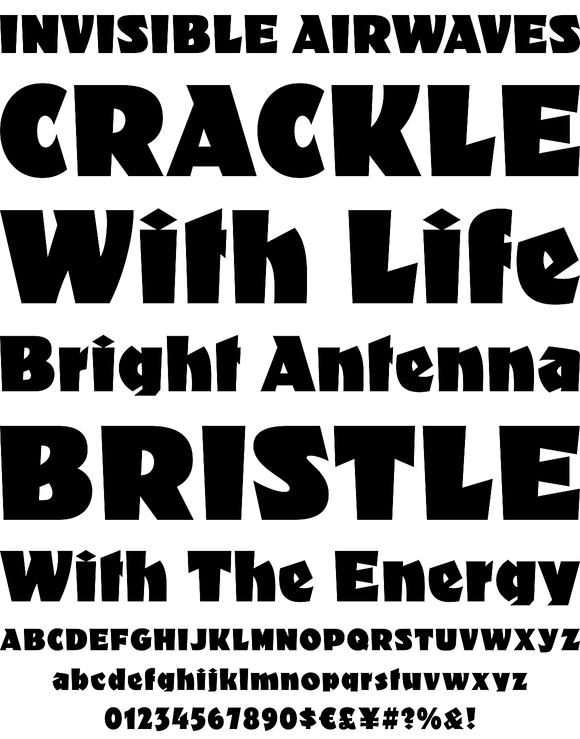
Louis is a faithful digital rendition and expansion of a design called Fanfare, originally drawn by Louis Oppenheim in 1927.
Redrawn digitally by Rod MacDonald, and engineered in-house by Canada Type, Louis includes the many alternates that came with the original design, and then some. It was also expanded into three variations, including a soft-cornered style, and a rough woodcut one. And of course, the codepage support covers the majority of Latin-based languages.